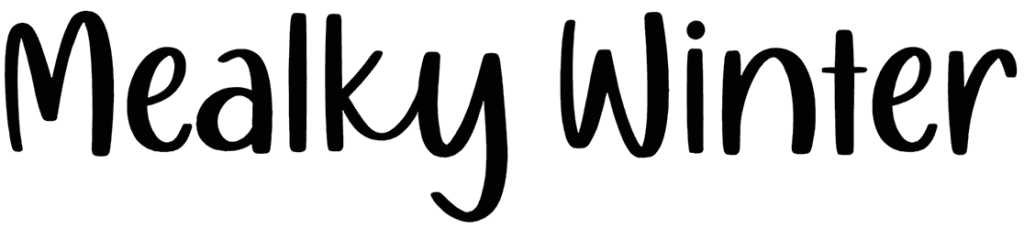
Mealky Winter Font
Contrary to the name, Mealky Winter is a summery font that can especially attract your audience. This script font is inspired by simple cartoon characters and includes curves that give it a playful look.